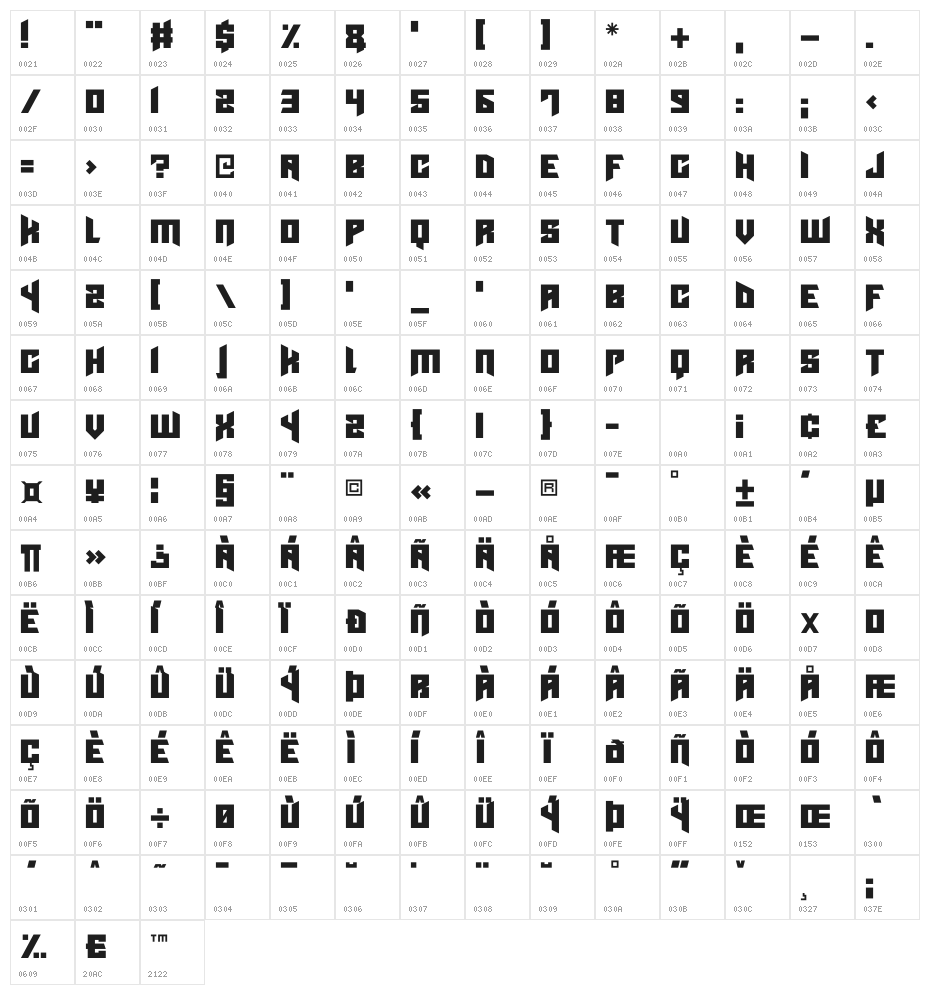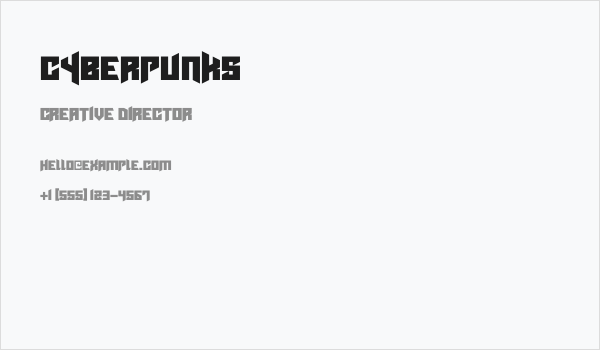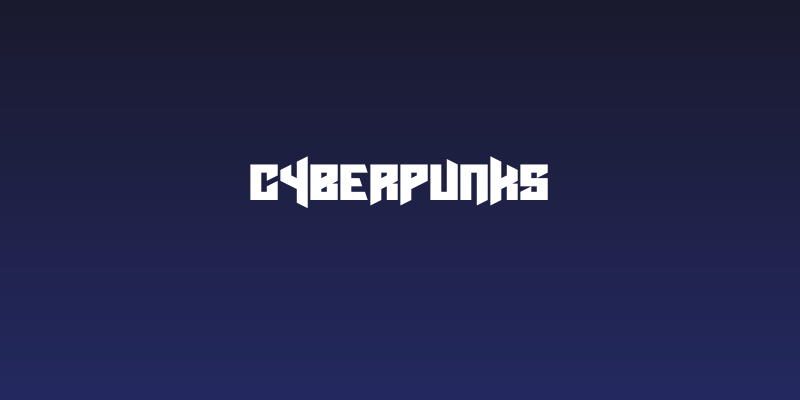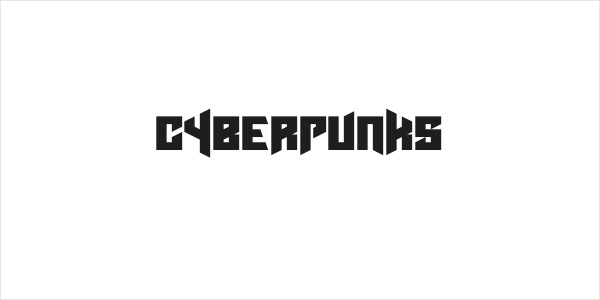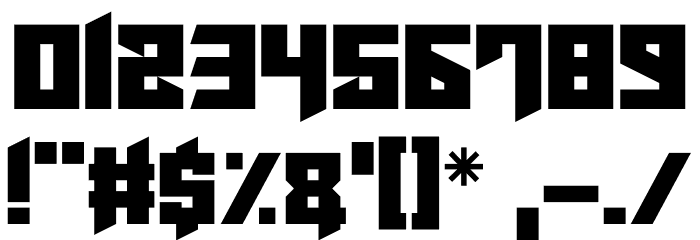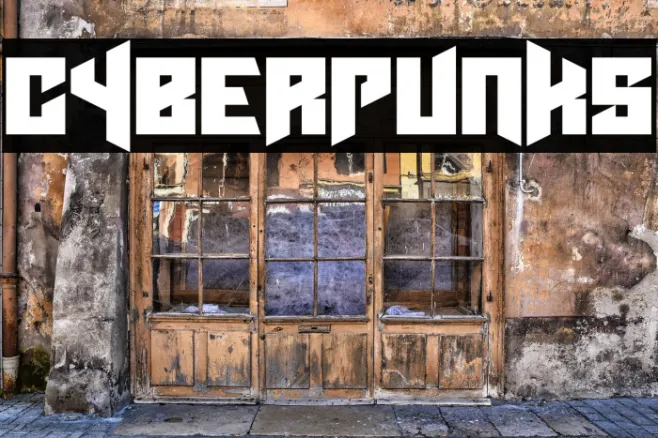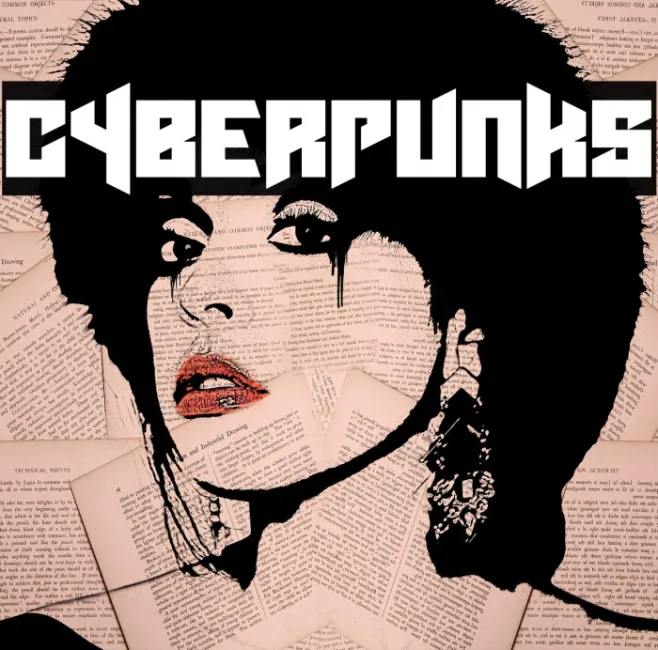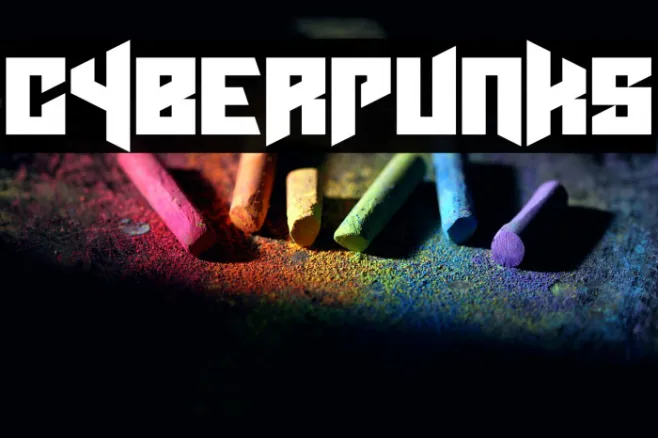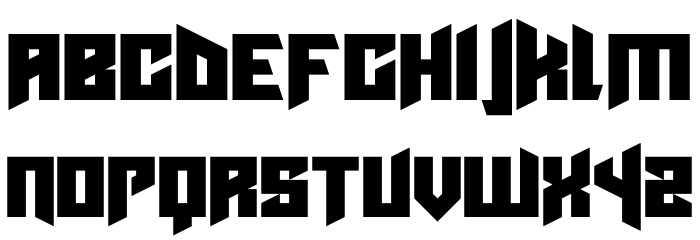
Cyberpunks Font
Cyberpunks Description
This font features a bold, angular design with a futuristic and edgy aesthetic. The characters are constructed with sharp, geometric shapes that give a sense of movement and energy. The uppercase and lowercase letters maintain a consistent style, with the uppercase being particularly striking due to their blocky, robust forms. Numbers and special characters follow the same design principles, ensuring uniformity across the typeface. The font's unique style makes it stand out, ideal for projects that require a modern and dynamic look.
| Proposed Projects | Ideal for sci-fi themed projects, video game titles, tech branding, and posters. |